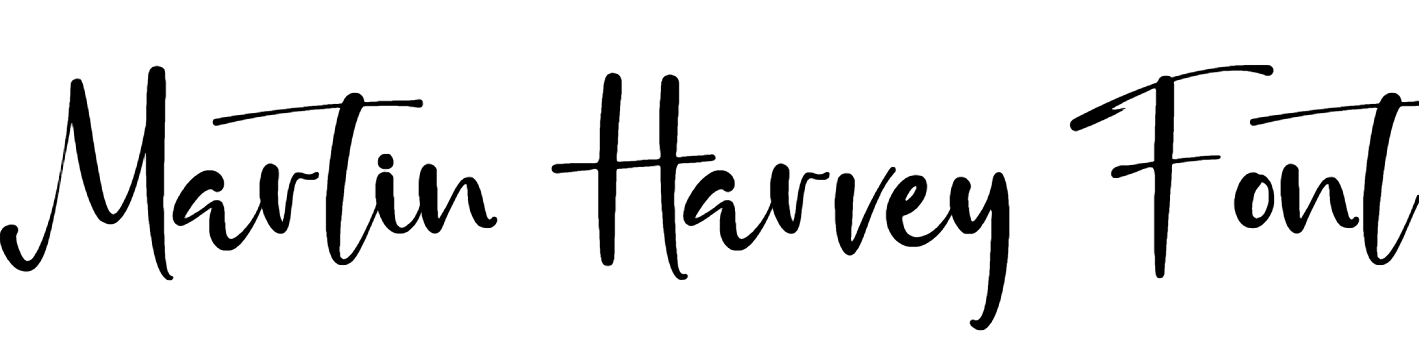
Martin Harvey
Martin Harvey is a calligraphy font made by VZtype (2021). The letters have the smooth movement of real pen lettering, which is why even a single name looks special in it. It's a free download, and you can try it with your own text in the preview above first.
- Designer: VZtype
- Extra characters: 10 copy-and-paste alternates (Private Use Area)
What You Can Type With Martin Harvey
You get every letter from A to Z in both cases and all the numbers from 0 to 9, which means Martin Harvey can handle full sentences, dates and prices. Common punctuation such as &, !, ? and @ is included as well. It also has the accented letters you need for Spanish, French, German, Portuguese and Italian.
Where Martin Harvey Works Best
Designers usually reach for fonts like Martin Harvey when they're making wedding invitations, certificates and elegant quotes. Its lowercase letters are small compared to the capitals, so set it a size or two bigger than usual. Script fonts read best in short bursts, so keep it to names, titles and one-line quotes. Skip all caps: script capitals are drawn to start a word, not to fill one.
Who designed Martin Harvey font?
Martin Harvey was designed by VZtype. The copyright line inside the font is dated 2021.
Does Martin Harvey support accented letters?
Yes. Martin Harvey includes the accented letters needed for Spanish, French, German, Portuguese and Italian, so it works for more than just English.